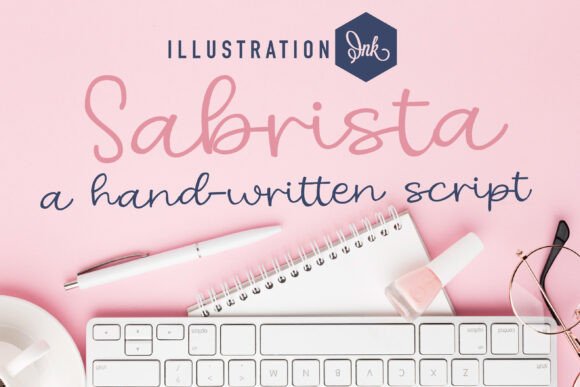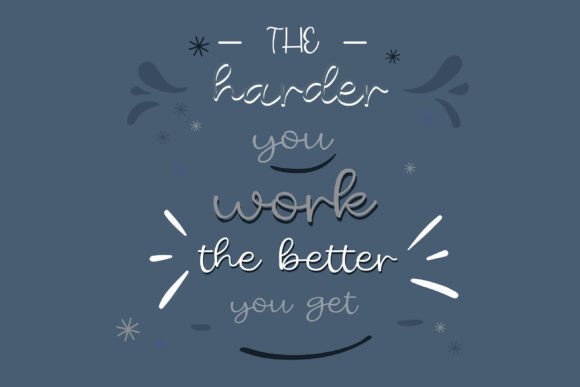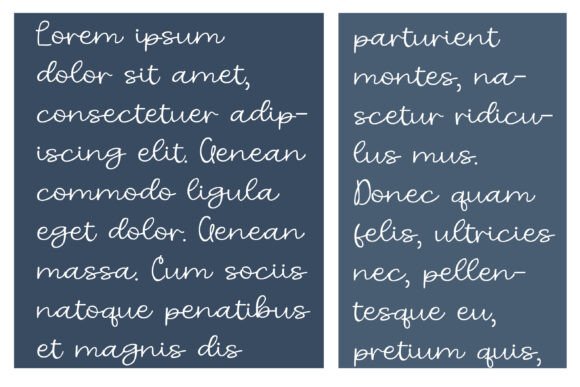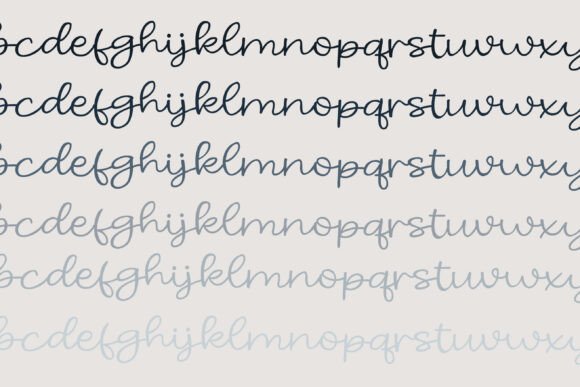
Sabrista Font
About the Sabrista Font
We are excited to introduce Sabrista Font, a must-have typeface for any serious designer. This hand-crafted font is an upright cursive with a casual feel.
Bold version included.
Sabrista’s casual, upright cursive style is ideal for headlines, short text blocks on invitations or branding materials, and even playful packaging designs. Its handcrafted charm works well in contexts requiring a personal touch. However, avoid using Sabrista for body text or long paragraphs; its cursive nature hinders readability in extended use. The bold version adds impact to titles or short slogans.
Consider pairing Sabrista with a clean sans-serif like Montserrat for a contemporary feel, or a classic serif such as Garamond for a more traditional balance. A geometric sans-serif like Futura could also create a striking contrast, while a simple script font could enhance the handwritten aesthetic, but should be used sparingly to avoid visual clutter.
Sabrista projects a friendly, approachable personality, making it suitable for brands focusing on warmth and approachability, such as artisan crafts, small businesses, or lifestyle brands. It is less suitable for formal corporate identities or applications requiring high readability.
Sabrista Font Usage Examples
Sabrista Font Example